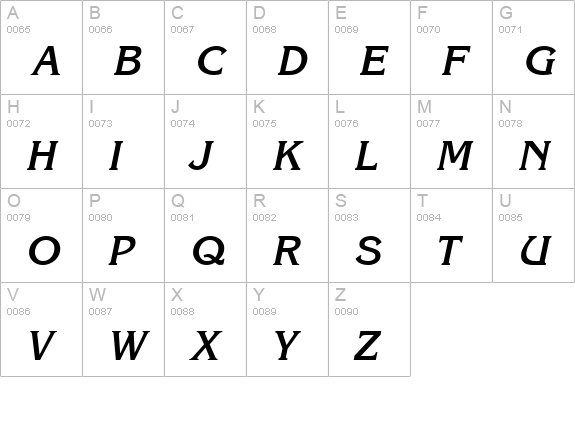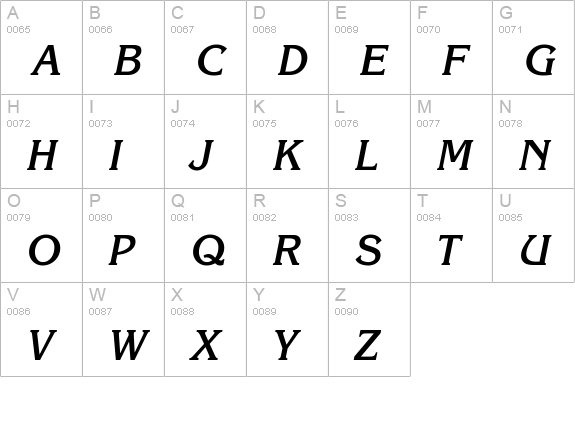
Intuition SSi Bold Italic Font Details
Intuition SSi Bold Italic is a strong, high-contrast, italic variant in the Intuition typeface family \xE2\x80\x94 well suited to headlines, attention-grabbing titles, and strong calls-to-action.
Intuition SSi Bold Italic font is a captivating and versatile typeface that exudes a sense of elegance and sophistication. Its bold and italic design adds a touch of flair to any project, making it perfect for eye-catching headlines, attention-grabbing titles, and creative displays. This font showcases a harmonious blend of modernity and classic appeal, making it suitable for a wide range of design purposes. Whether you're working on a branding project, a magazine layout, or a website design, Intuition SSi Bold Italic font will effortlessly elevate your work to new heights. With its sleek and stylish curves, this font is bound to captivate your audience and leave a lasting impression. Its bold weight commands attention, while the italic slant adds a sense of dynamism and movement to your text. The result is a visually striking and aesthetically pleasing typeface that stands out from the crowd. What sets Intuition SSi Bold Italic font apart is not only its visually stunning design but also its availability. This font is freely available to download at FontsMarket.com, a trusted and reputable source for high-quality fonts. By offering this font for free, FontsMarket.com ensures that designers and enthusiasts alike can access and enjoy this exceptional typeface without any barriers. So, whether you're a professional designer looking for a fresh and exciting font to enhance your projects or a hobbyist searching for a unique and captivating typeface, Intuition SSi Bold Italic font is the perfect choice. Download it now at FontsMarket.com and unlock its unlimited potential to elevate your designs to new levels of aesthetic excellence.